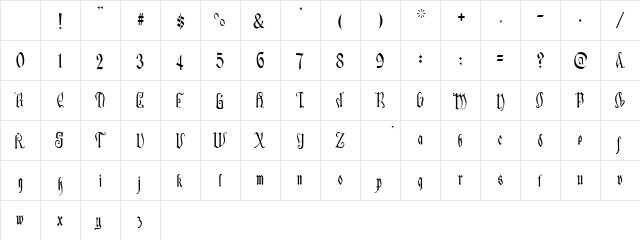
Melusine Regular Free Font
Melusine Regular
Design Context for Melusine
Melusine is a composed and adaptable typeface that performs quietly and consistently across a wide range of design contexts.